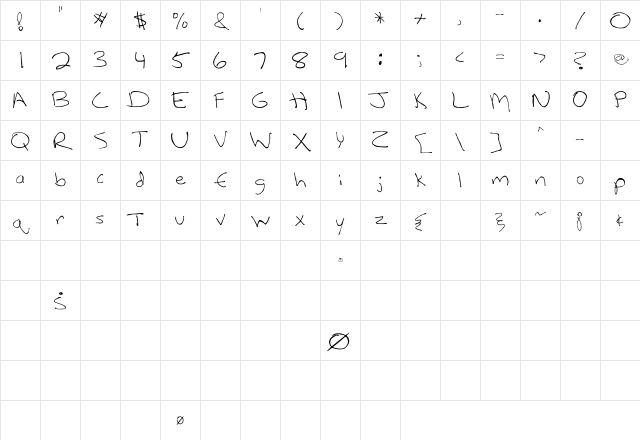
LeftyCasual Regular Free Font
LeftyCasual Regular
Complete LeftyCasual Regular glyph index. Displaying only characters natively supported by LeftyCasual Regular font.
Design Context for LeftyCasual
LeftyCasual is a composed and adaptable typeface that performs quietly and consistently across a wide range of design contexts.